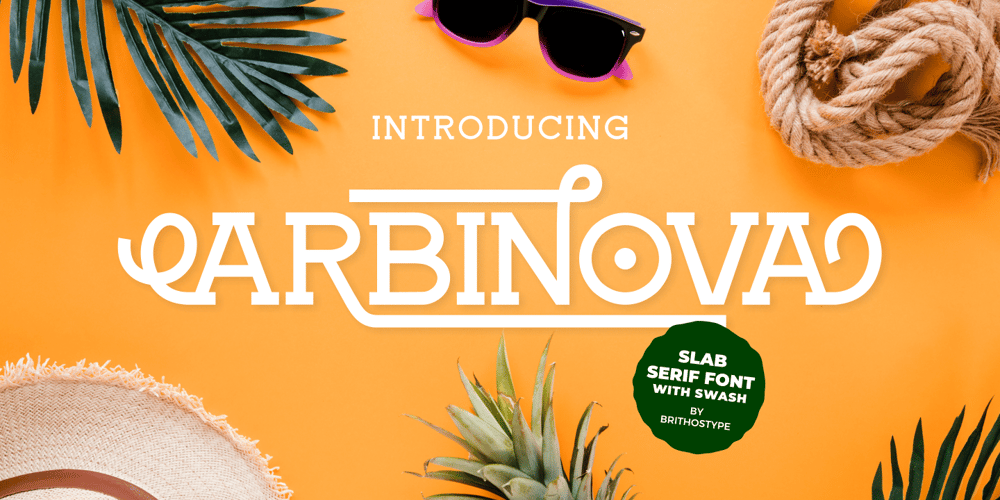
Arbinova Font Family was designed by Abdullah and published by Brithos Type. Arbinova contains 1 styles and family package options. Arbinova is a strong slab serif font. With its swash and beautiful arrangement of letters, this typeface will look outstanding in both formal and non-formal designs.This font is PUA encoded which means you can access all of the glyphs and swashes with ease!Caps only Fonts.